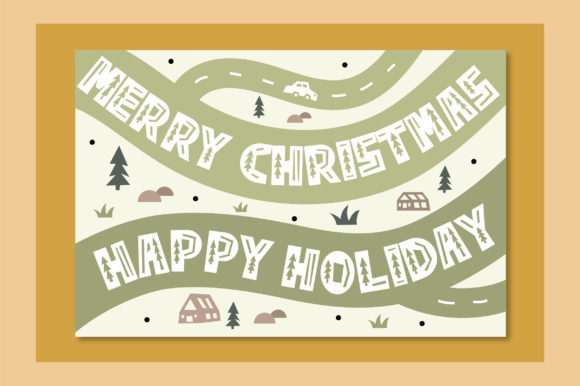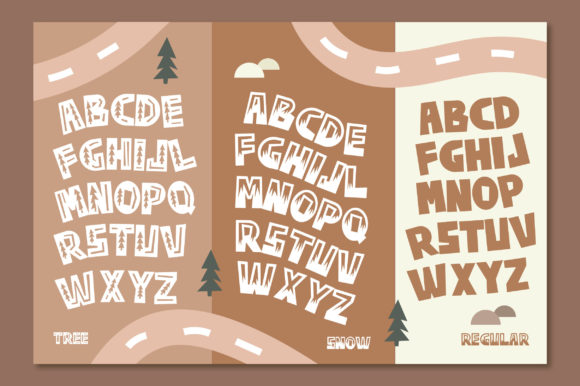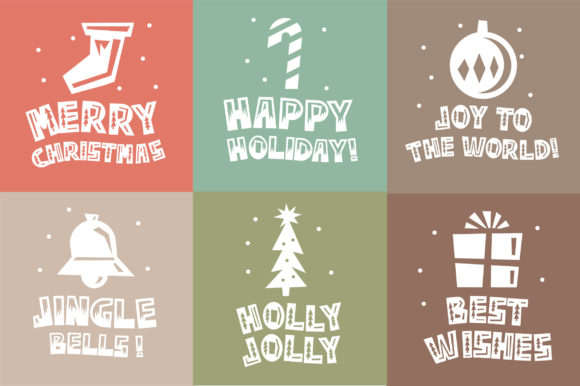
Introduction to Pinnacle Font
Pinnacle is a fun and crafty decorative font.
Whether youโ€™re using it for digital design, presentations, or making greeting cards, this font has the potential to become your favorite go-to font, no matter the occasion .
Key Features of Pinnacle Font
Why Choose Pinnacle Font?
Pinnacle Font offers exceptional quality and versatility, making it a valuable addition to your design toolkit. Whether you’re creating for personal projects or commercial use, Pinnacle Font delivers professional results.